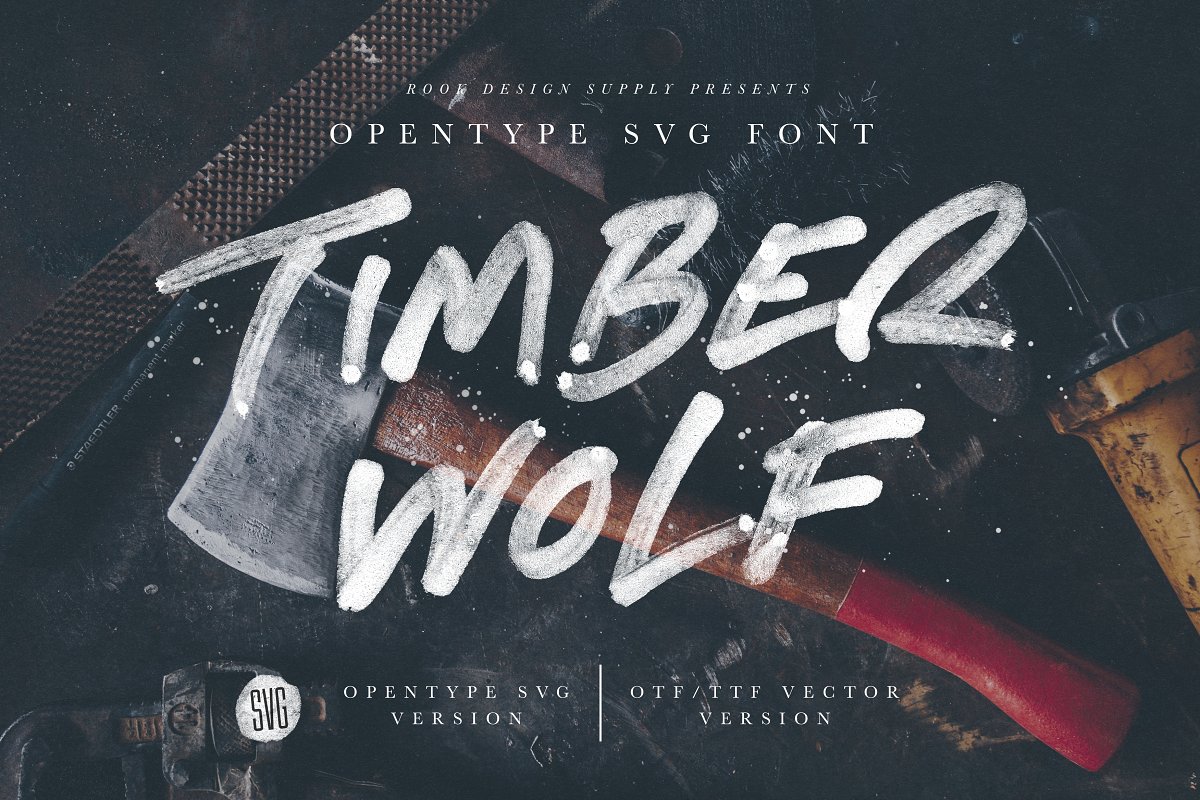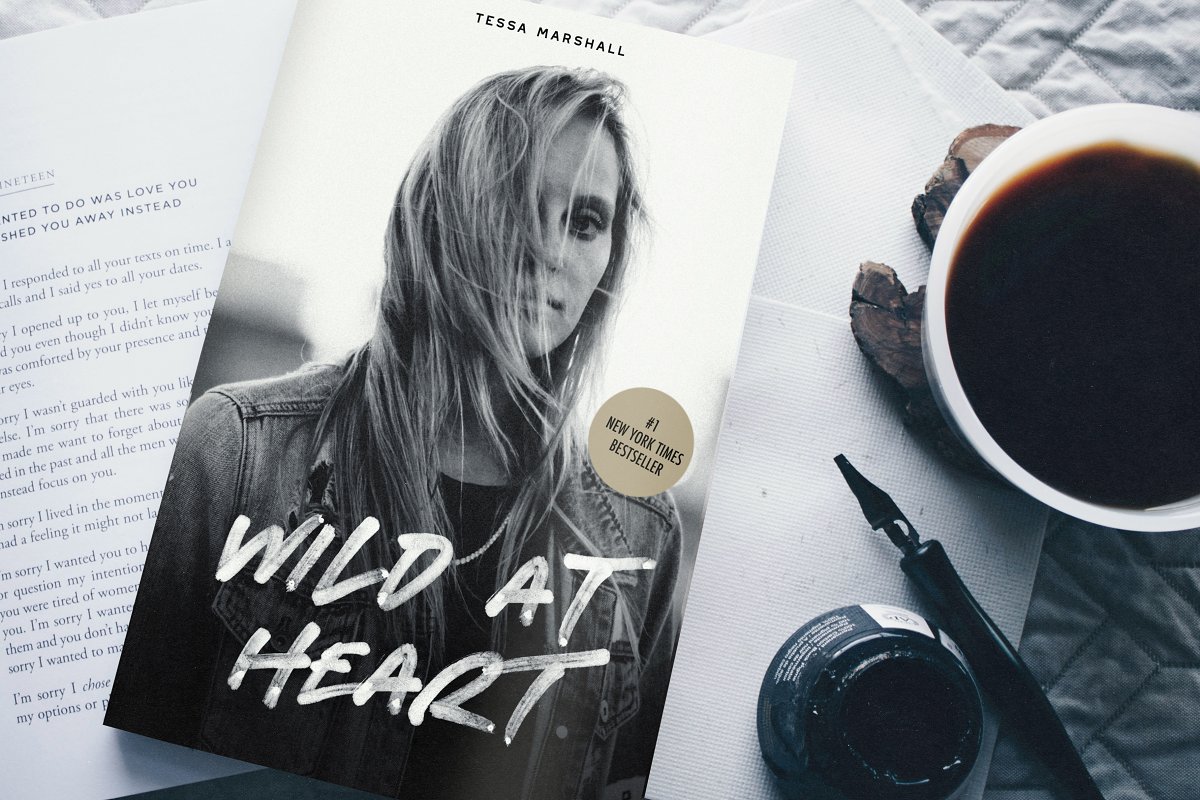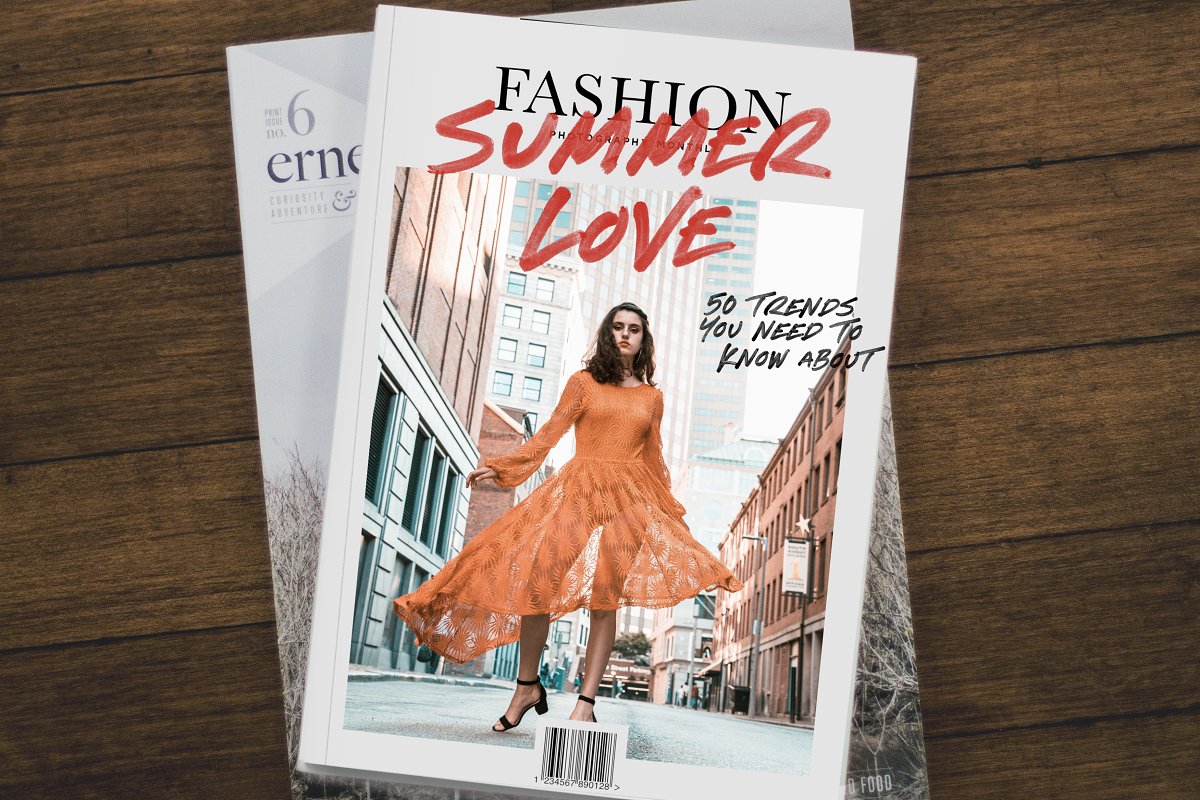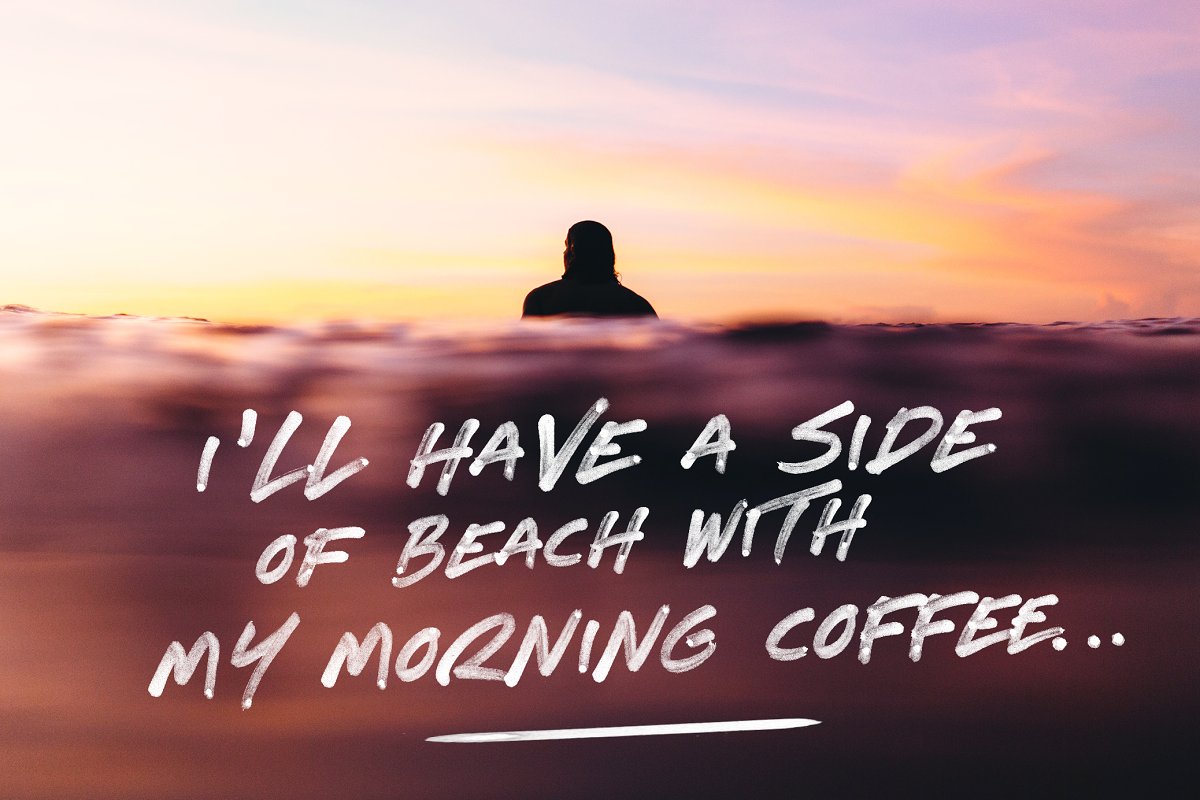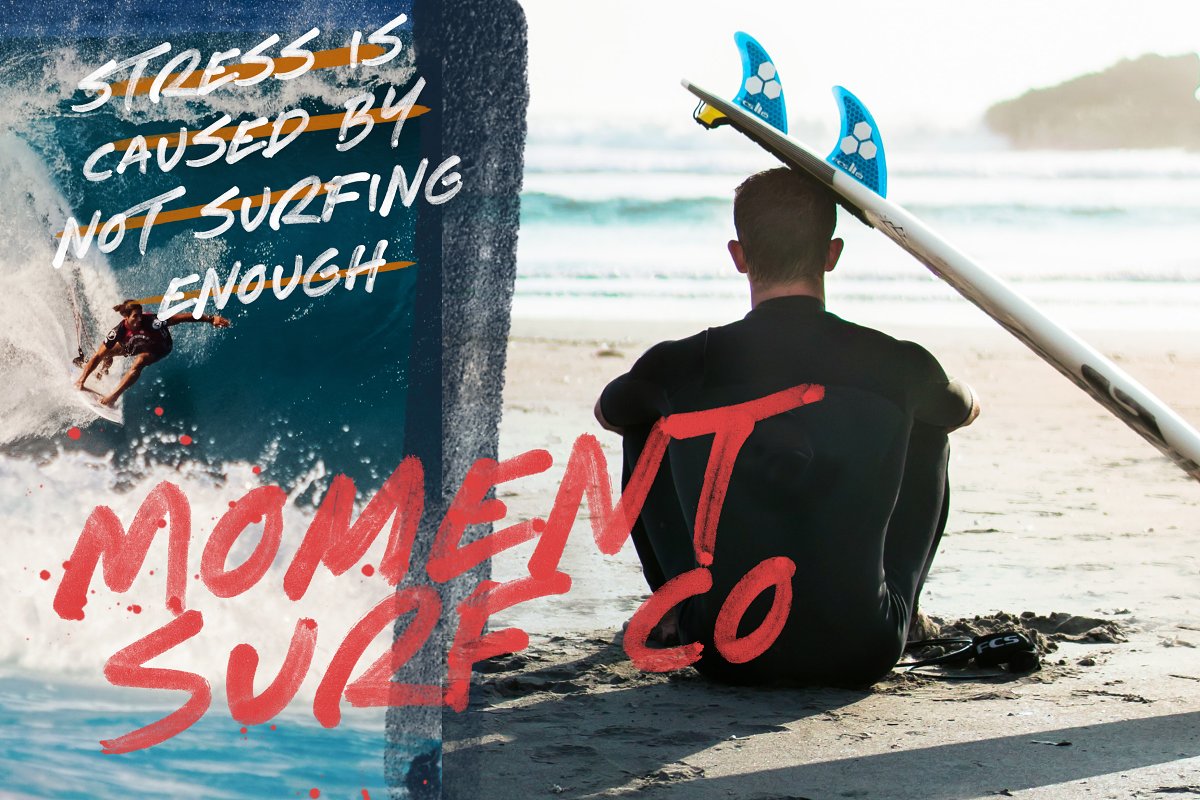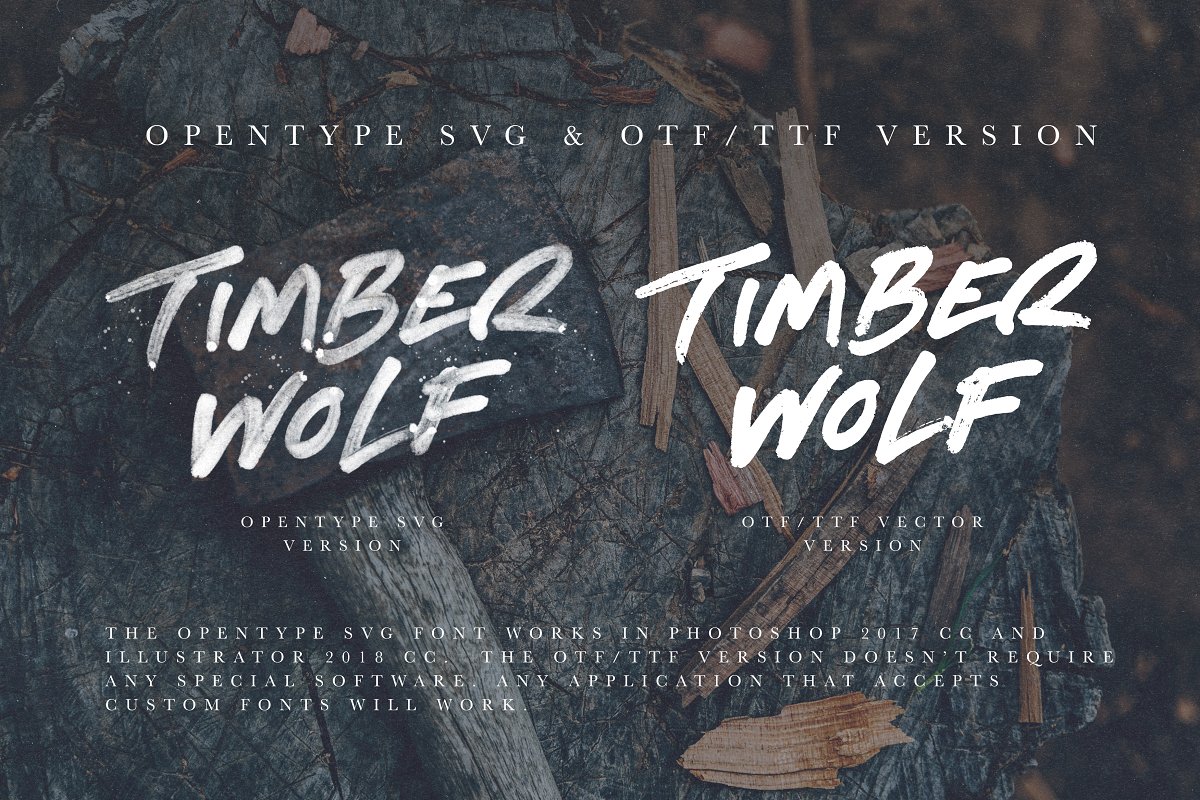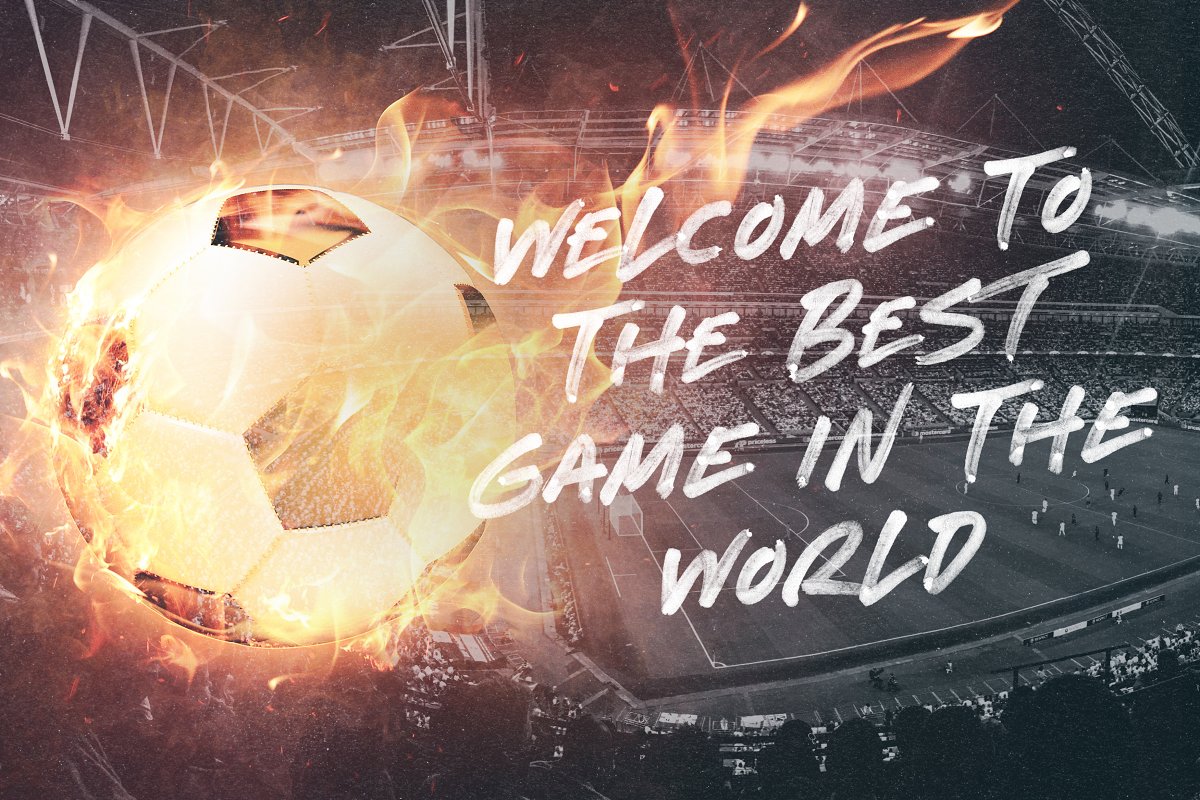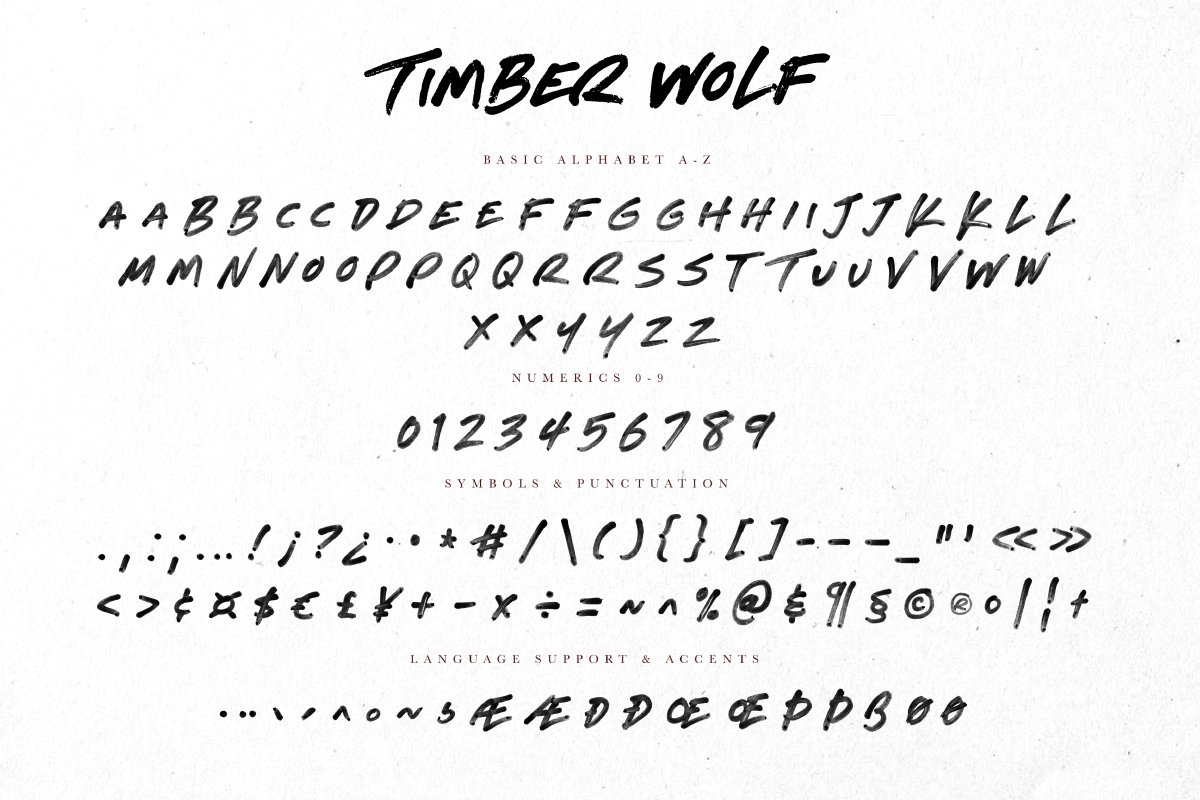
About the Timber Wolf Opentype SVG Font
Take your design game to the next level with a hyper realistic font that truly looks hand written, Timber Wolf uses brand new font technology that makes way for more authentic looking fonts and is sure to grab the attention of customers and designers alike, So how does it work? Instead of vectorizing the letters, Timber Wolf uses actual images and transparency effects in order to get the quality that you see
This is all made possible thanks to the latest developments of the OpenType-SVG format, and the integration of that technology into Photoshop CC 2017, 1, 1 and Illustrator CC 2018, Timber Wolf installs like any other font, and can be used in any color, on any background